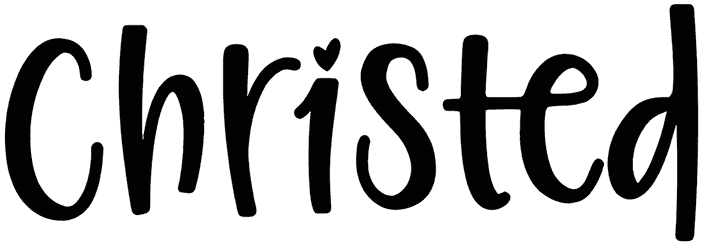
Christed Font
Get cracking to retire from the plain boring style and put emphasis on Christed, this script font is the real-time opportunity to get the booming concept of designing many greeting cards, romantic texts, social media posts, or even print-on youngsters’ T-shirts.